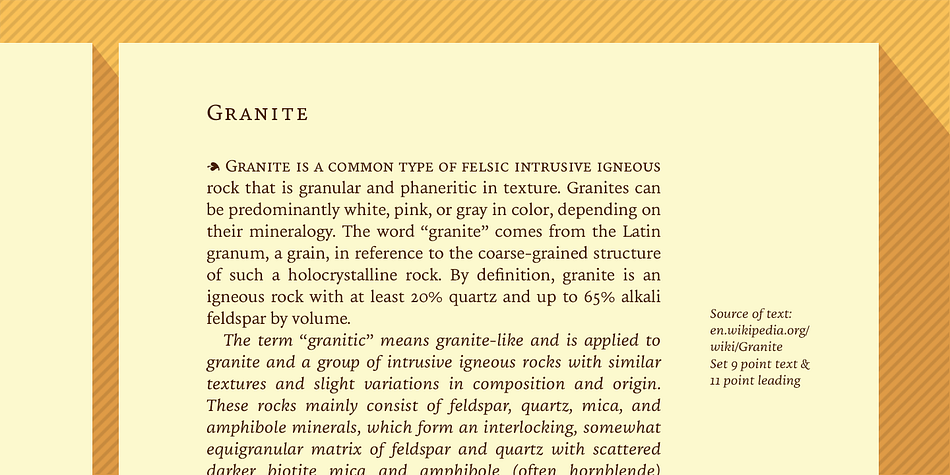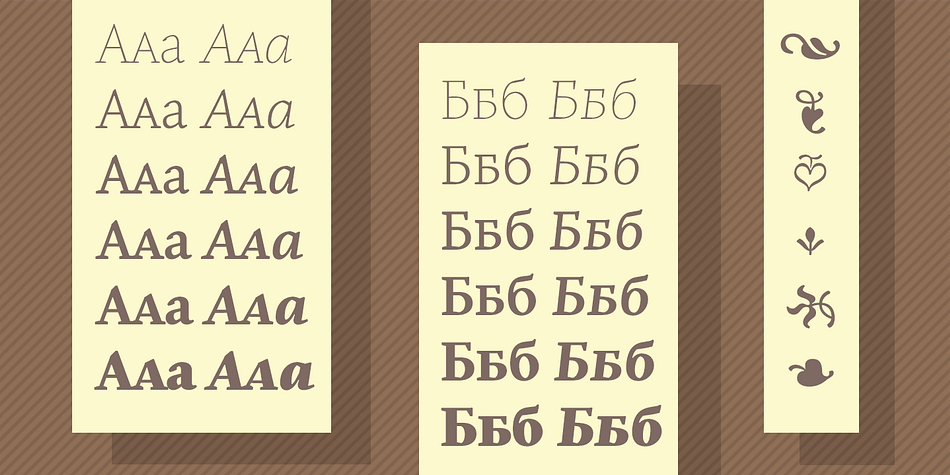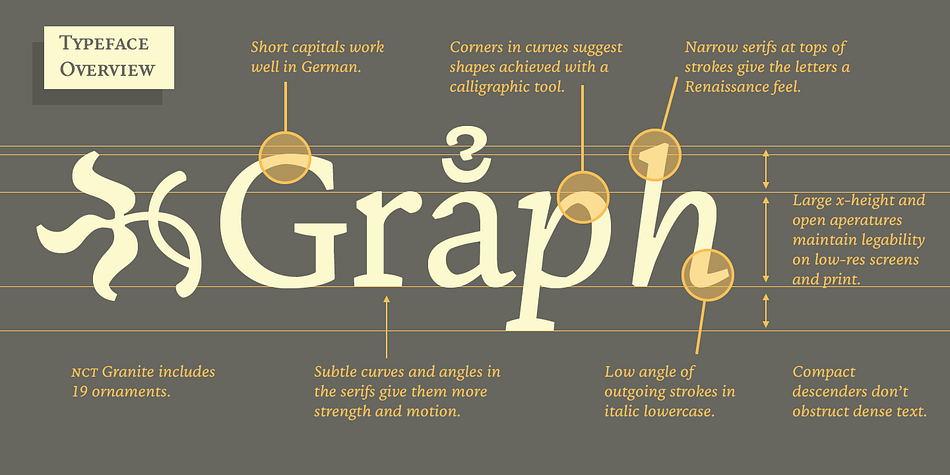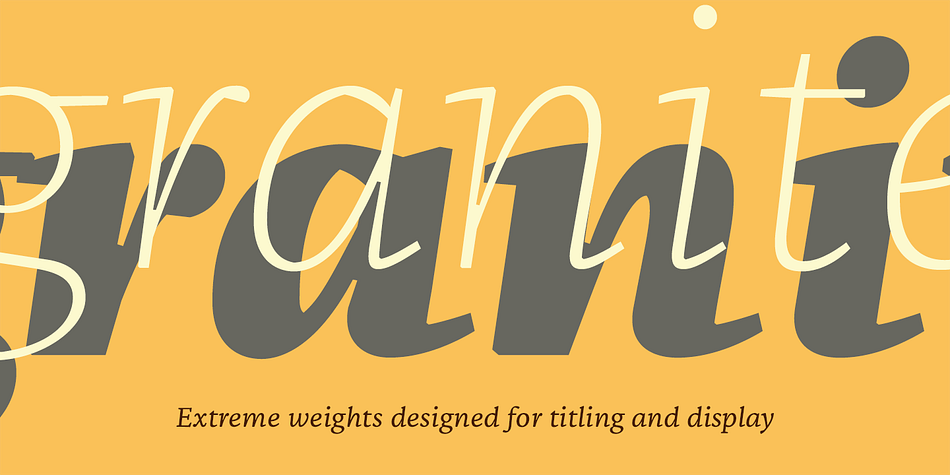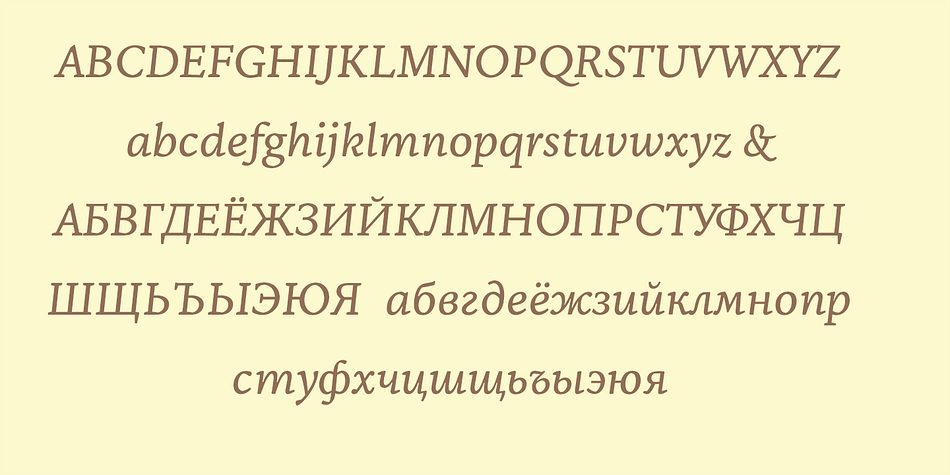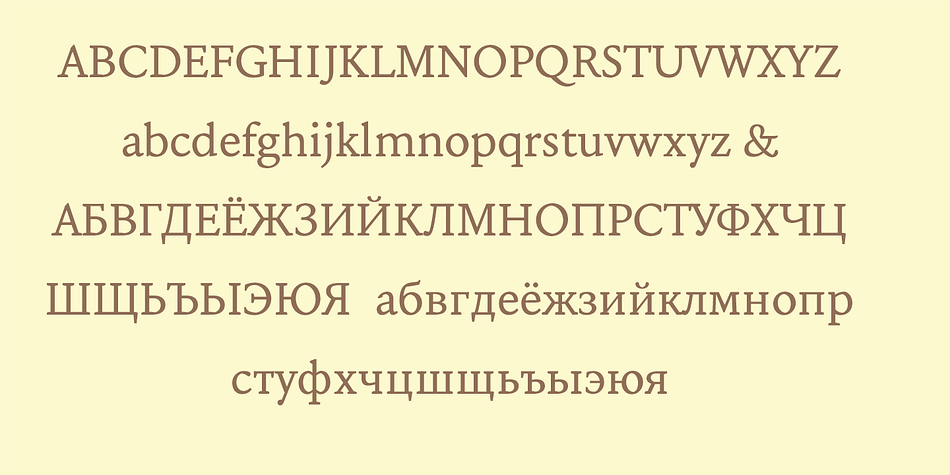
NCT Granite is a serif font family. This typeface has twenty styles and was published by NCT.
NCT Granite brings the shapes of Renaissance type into the modern world with a robust and functional typeface designed to work on both screen and print. Its italic is about as wide as the roman, making it very easy to read in long text.
NCT Granite supports all major European languages, Vietnamese, Pinyin, Arabic and Hebrew transliteration, and multiple languages in the Cyrillic script. The typeface comes with many OpenType features including oldstyle (and small cap) numerals, tabular and proportional numerals, and superscript, subscript, and fractions. Small caps are available for Latin and Cyrillic.